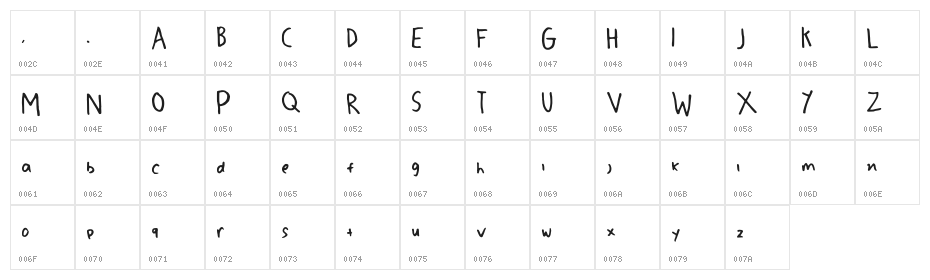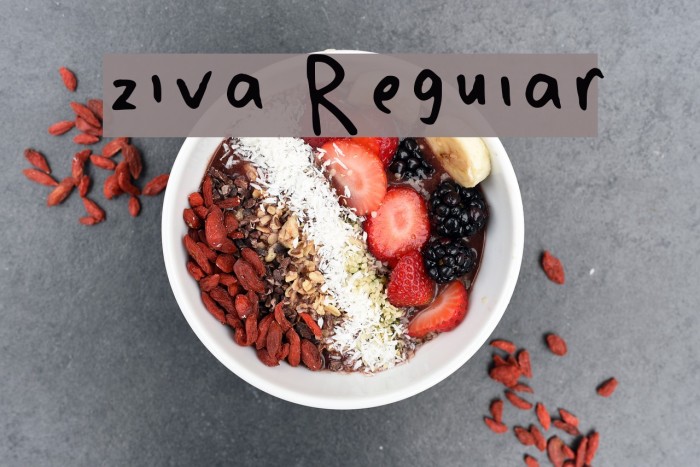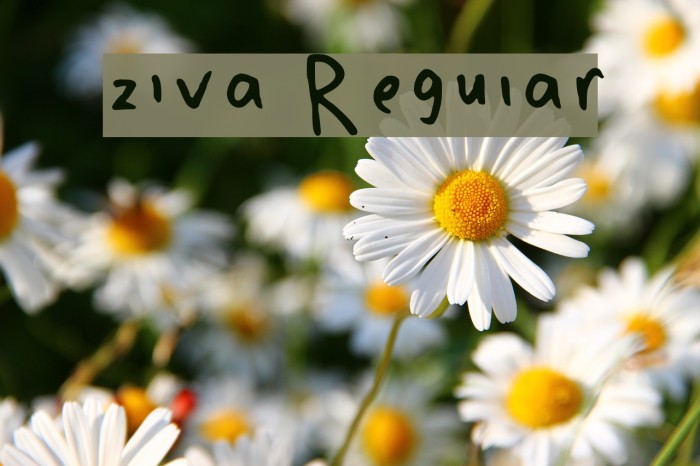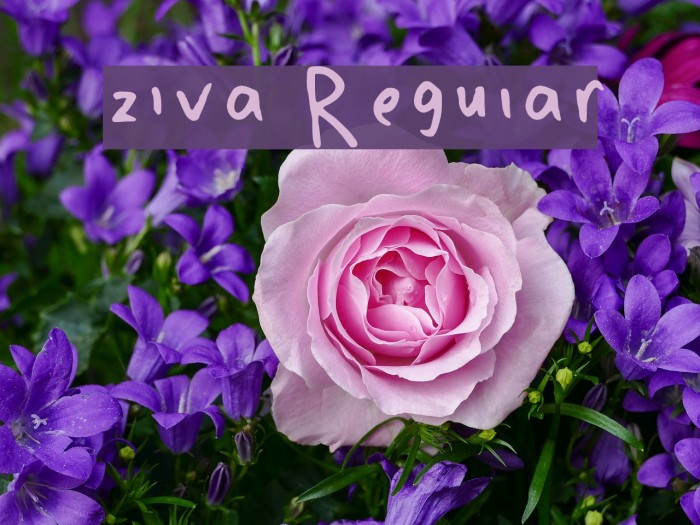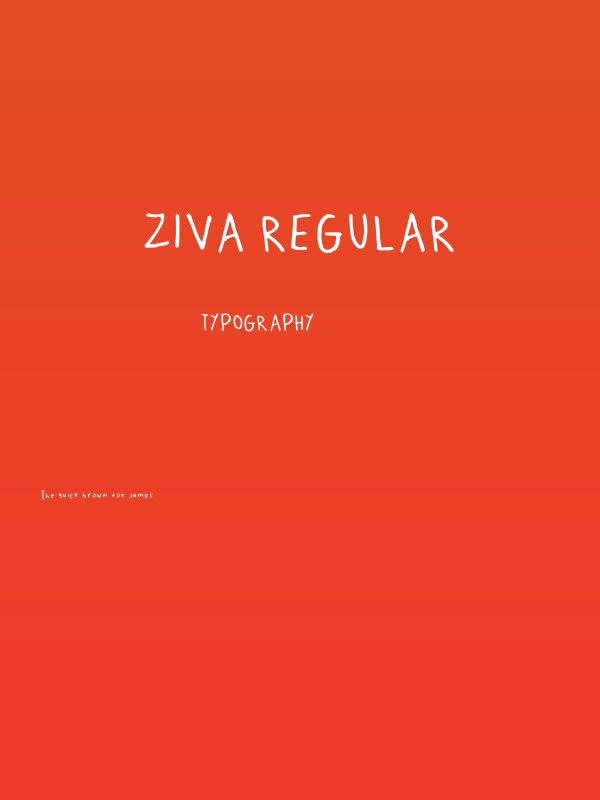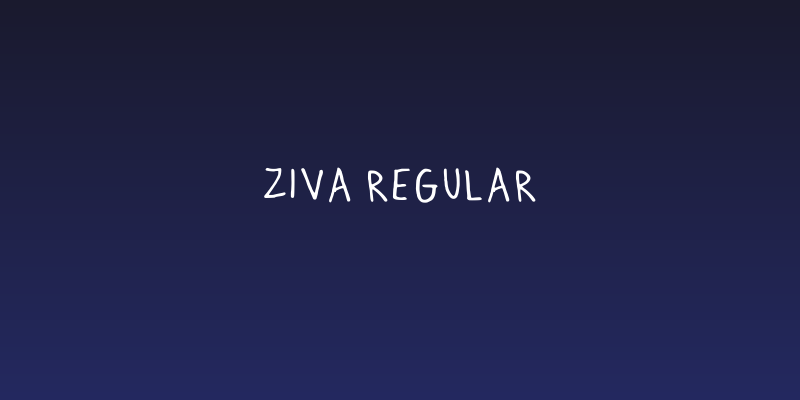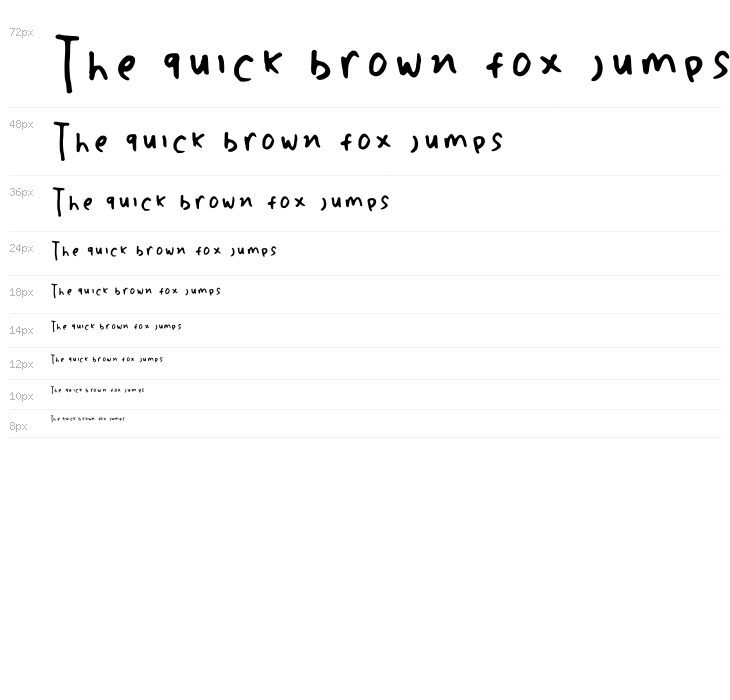
ziva Regular Font
ziva Regular Description
This font features a playful and informal handwritten style, characterized by its irregular strokes and casual appearance. The letters are slightly uneven, giving it a charming and approachable feel. The uppercase letters are bold and prominent, while the lowercase letters maintain a consistent flow with a slight tilt, adding to the whimsical nature. The numbers and special characters follow the same playful design, making it suitable for creative and informal projects. The overall style is reminiscent of a personal note or doodle, perfect for adding a touch of personality to any design.
| Proposed Projects | Ideal for greeting cards, children's books, casual invitations, and creative branding. |